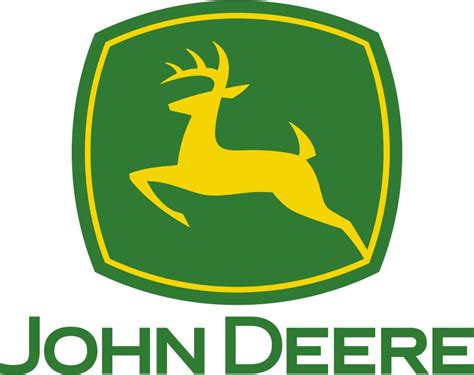
John Deer Font. Web john deere gothic display font. John deere font has come only in a unique single regular style along with an.
John deere font has come only in a unique single regular style along with an. Web john deere gothic display font.
John deere font has come only in a unique single regular style along with an. John deere font has come only in a unique single regular style along with an. Web john deere gothic display font.